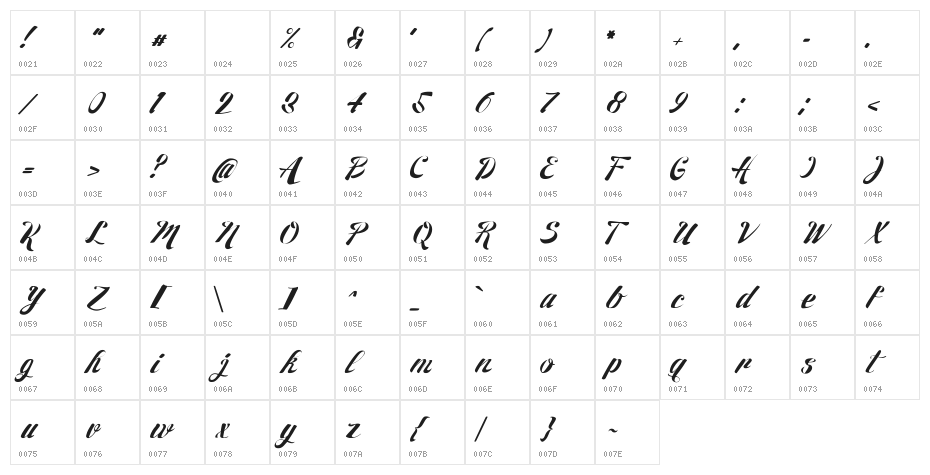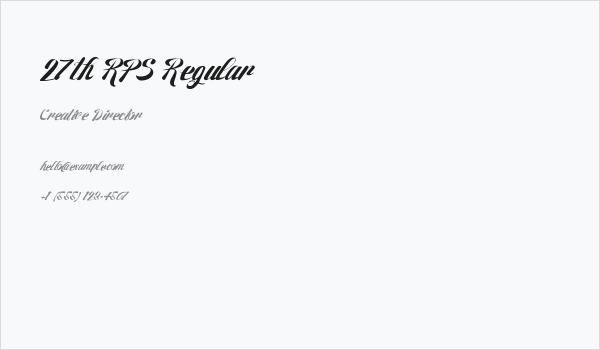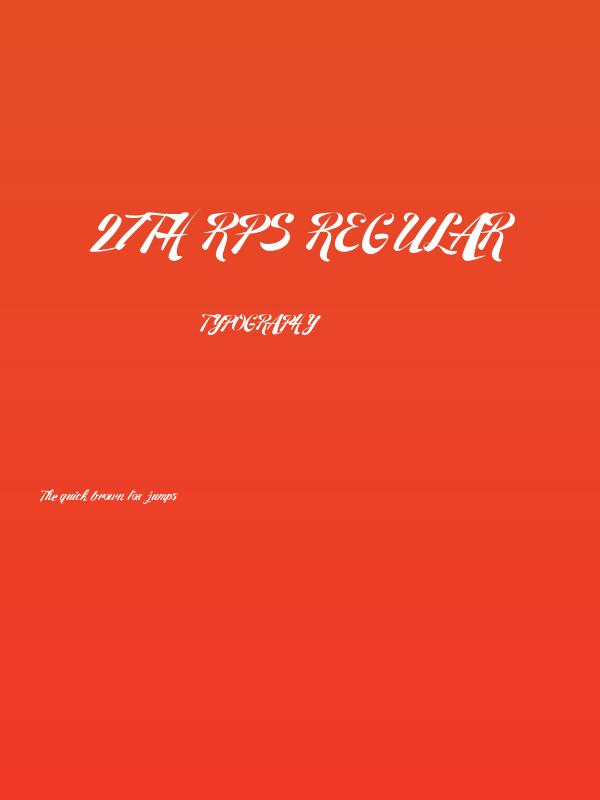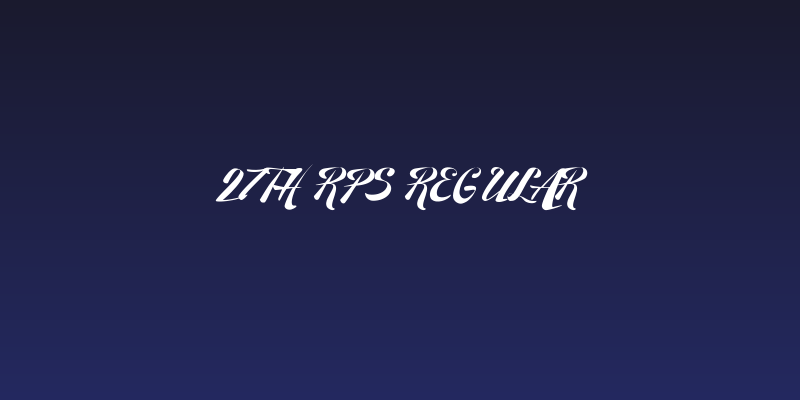
27th RPS Regular Font
27th RPS Regular Description
This font features a bold and elegant script style with a strong emphasis on fluidity and movement. The uppercase letters are characterized by sweeping curves and dramatic flourishes, while the lowercase letters maintain a consistent flow with slightly more restrained embellishments. The numerals and special characters follow the same stylistic cues, ensuring a cohesive appearance across all glyphs. The overall design exudes a sense of sophistication and dynamism, making it suitable for projects that require a touch of elegance and flair.
Overall StyleElegant, Dynamic
Use CaseLogos, Invitations, Branding
Proposed ProjectsIdeal for wedding invitations, luxury branding, elegant packaging, and high-end product labels.